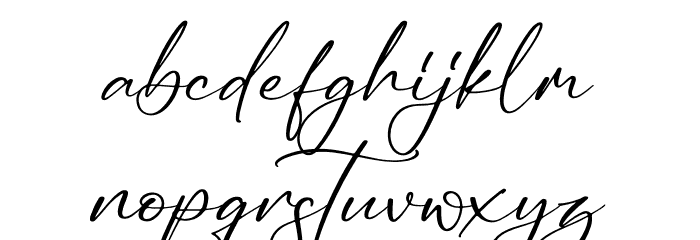
Ruliena Font
This elegant script font features fluid, connected strokes that mimic the natural flow of handwriting. The uppercase letters are gracefully elongated, while the lowercase characters maintain a consistent rhythm and balance. The numerals and special characters are designed with the same attention to detail, ensuring a cohesive look across all elements. The font's delicate curves and loops give it a sophisticated and artistic appearance, making it ideal for projects that require a personal touch.
A graceful and fluid script font with elegant, connected strokes.
- Font: Ruliena
- Proposed Projects: Ideal for wedding invitations, greeting cards, personal branding, and elegant packaging designs.
- Category: Script
- Overall Style: Elegant, Artistic
- Use Case: Logos, Invitations, Personal Branding